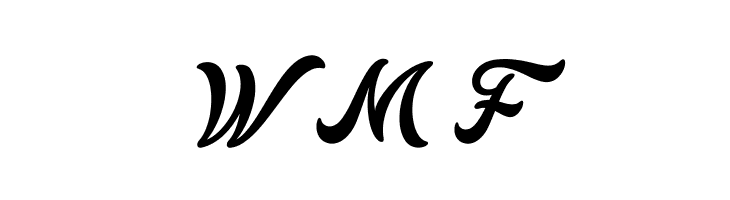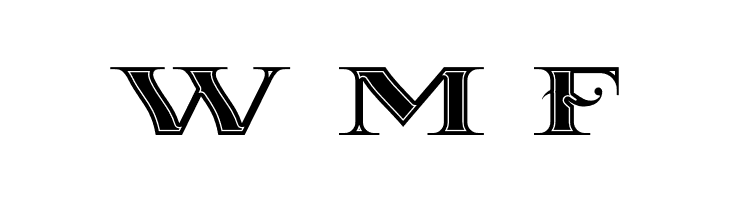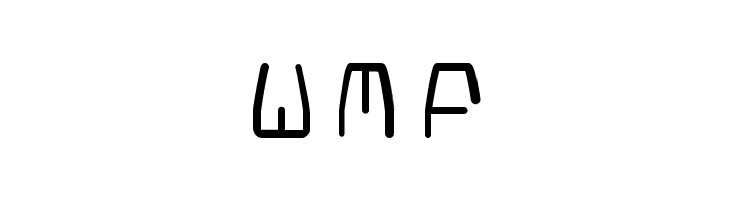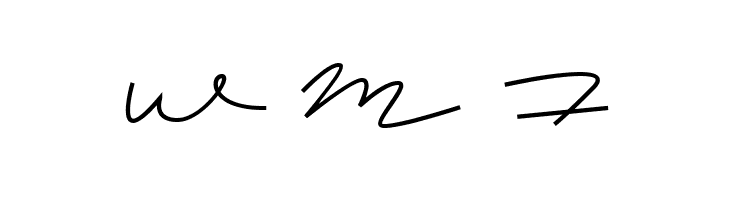
( Pedro Moreira - www.feo.cl )
A bold, textured font with a hand-drawn, geometric style.
( Vianca Crescini-Magpantay )
A modern, geometric font with a futuristic and versatile design.
( Tup Wanders - www.tupwanders.nl )
A bold, geometric font with a futuristic and tech-inspired design.
( Tup Wanders - www.tupwanders.nl )
A modern, italicized font with a sleek, futuristic design.
( Qkila - Quentin Aquila - www.creativefabrica.com/designer/qkila/ )
A playful, casual script font with smooth, flowing curves and a handwritten feel.
( Qkila - Quentin Aquila - www.creativefabrica.com/designer/qkila/ )
A geometric, monospaced font with rounded edges and consistent line thickness.
( Peter Olexa - www.dealjumbo.com )
A bold, decorative font with inline detailing and sharp serifs.
( Sigit Nur Wicaksono - creativemarket.com/ogit )
A sophisticated, elegant handwritten font with fluid, continuous strokes.
( Måns Grebäck - www.mansgreback.com )
A bold, cursive font with elegant, flowing lines and decorative flourishes.
( Rob Deurenberg - www.3rdscribble.com )
A bold, hand-painted style font with a dynamic and rough texture.